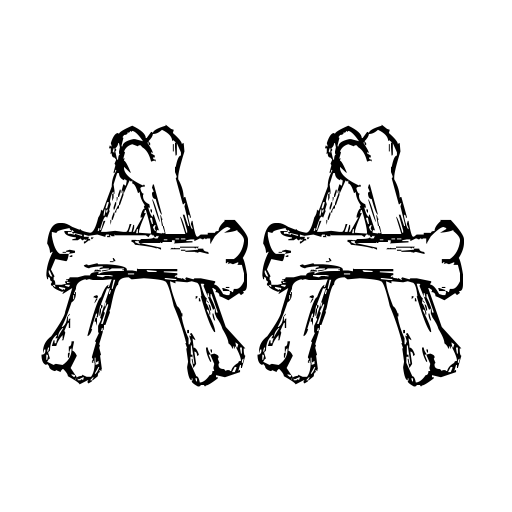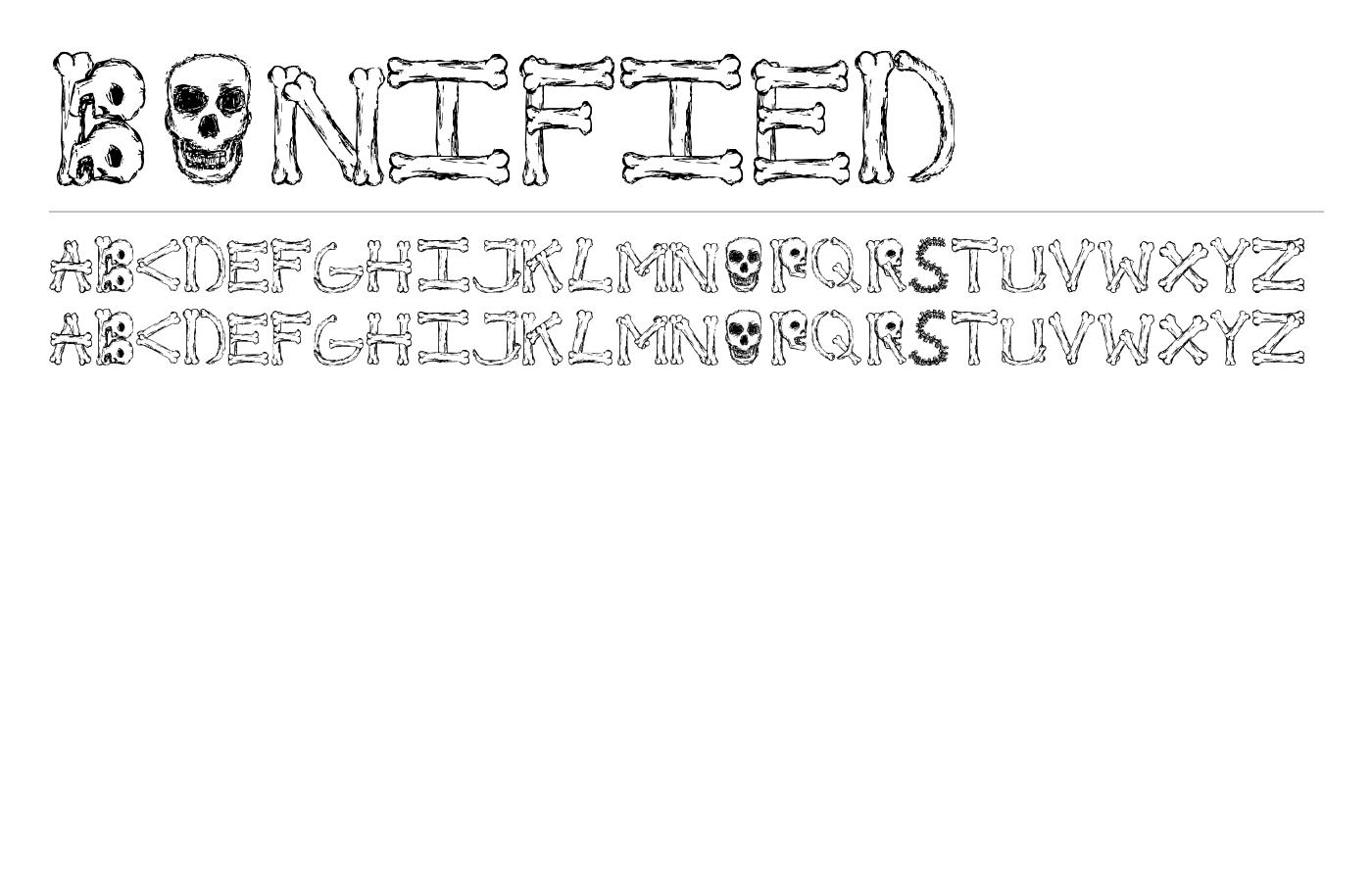
Bonified is a playful, decorative font featuring bones and skulls that create a quirky, spooky vibe perfect for Halloween or themed designs. Its bold, irregular shapes make it ideal for eye-catching headlines, logos, or posters where a fun yet eerie atmosphere is needed. This font works best in creative projects seeking a distinctive, whimsical style with a touch of macabre charm.
Bonified Font
About Bonified Font